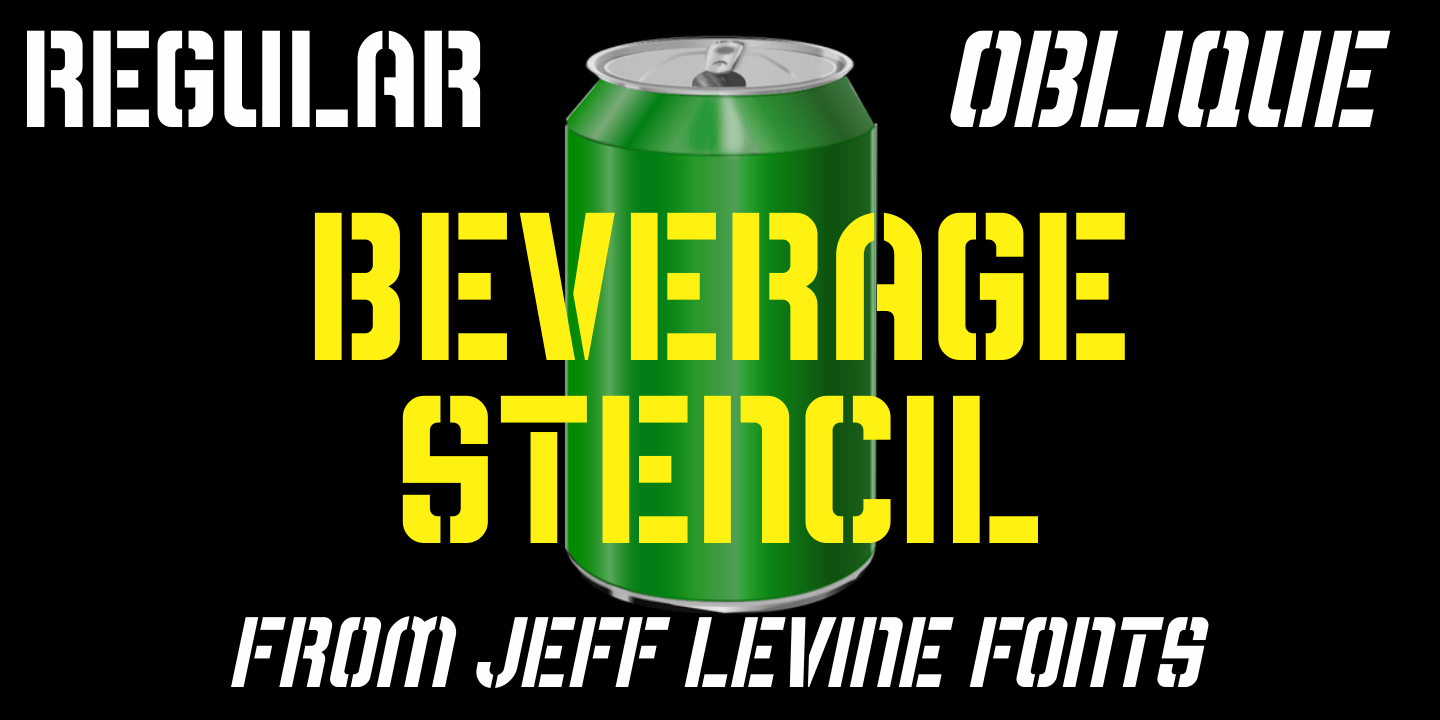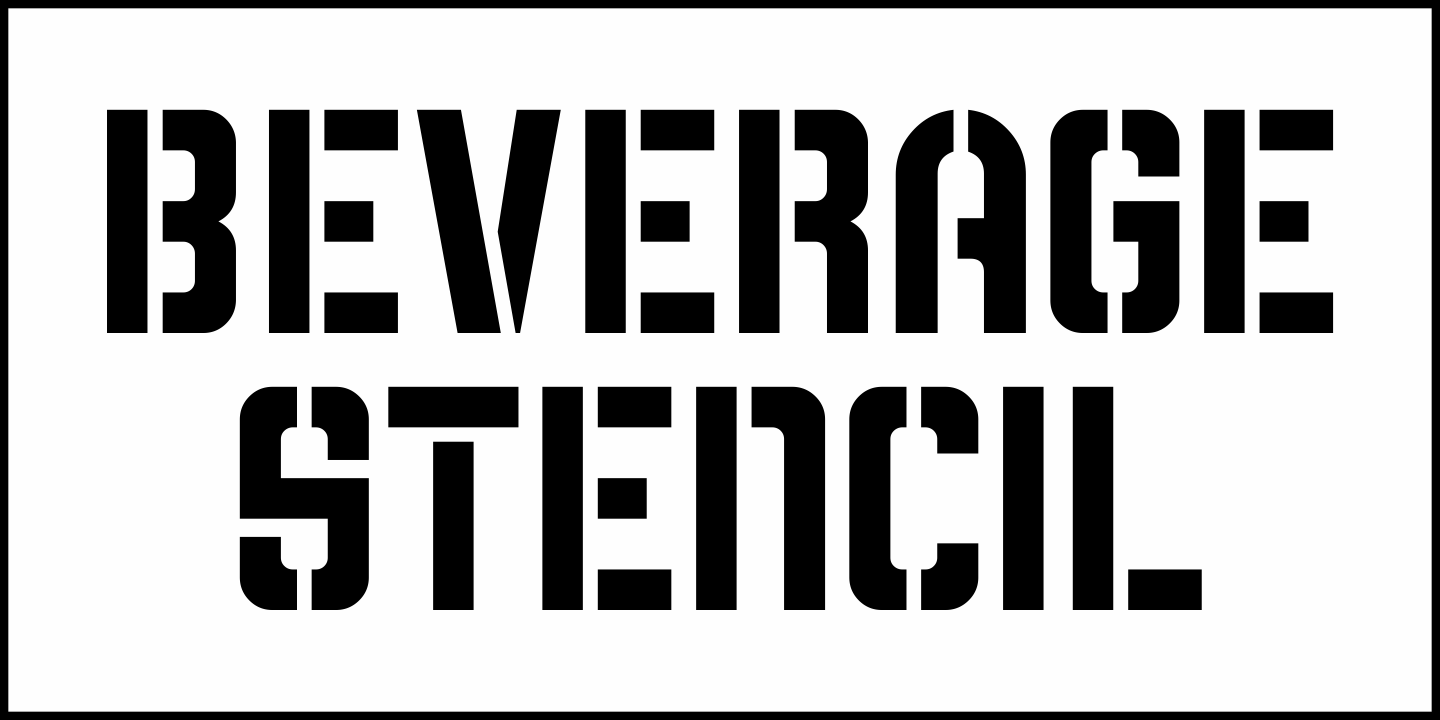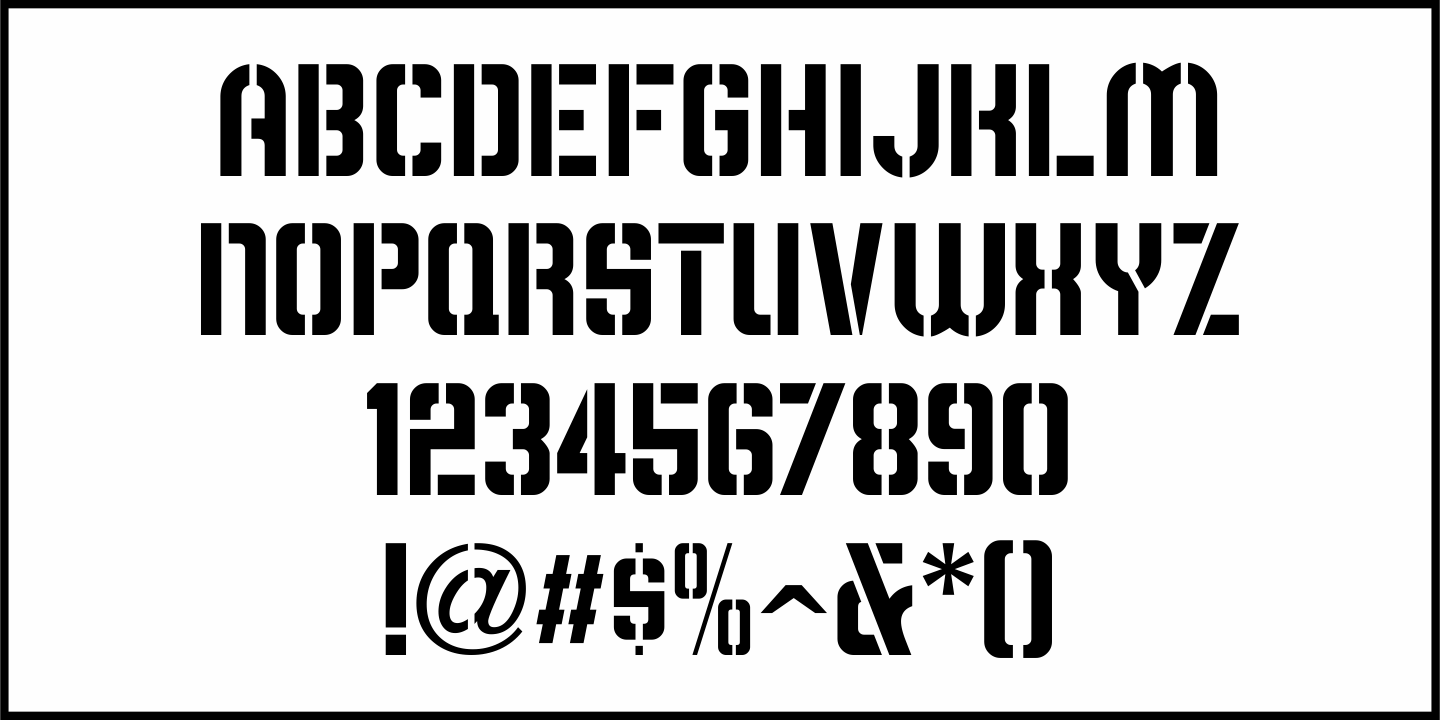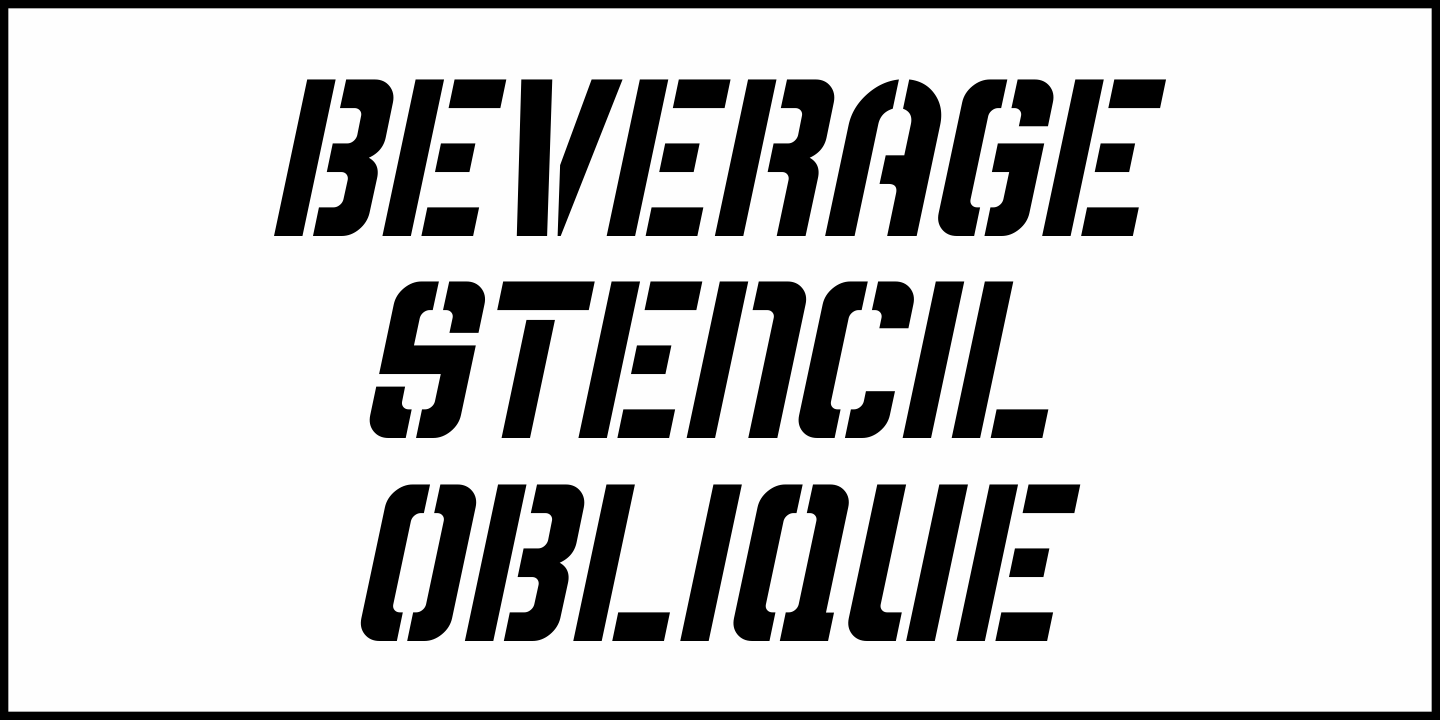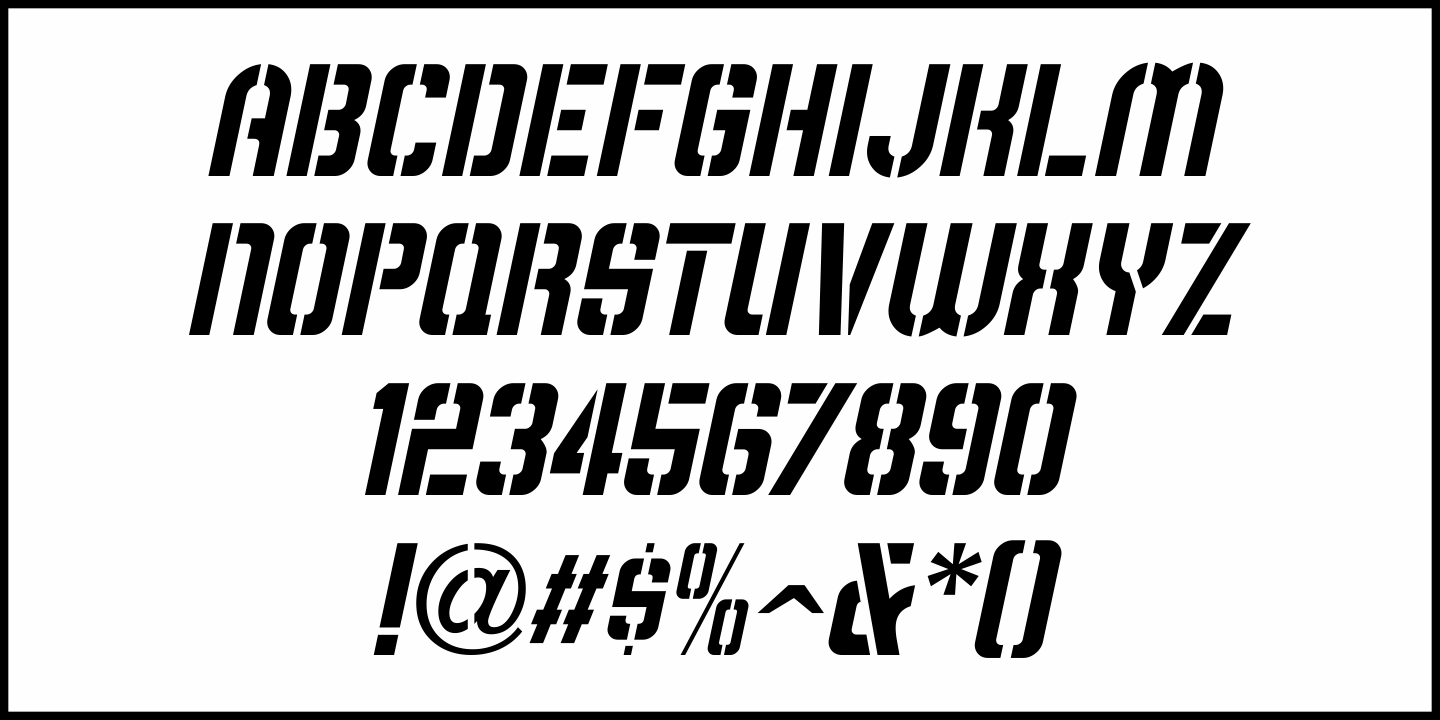
Beverage Stencil
The brand marking on a vintage wooden shipping case for bottles of Mission Naturally Good Orange Soda inspired Beverage Stencil JNL, which is available in both regular and oblique versions.
Mission was a popular soda in California from about 1929 through 1970.
Beverage Stencil includes 213 glyphs.